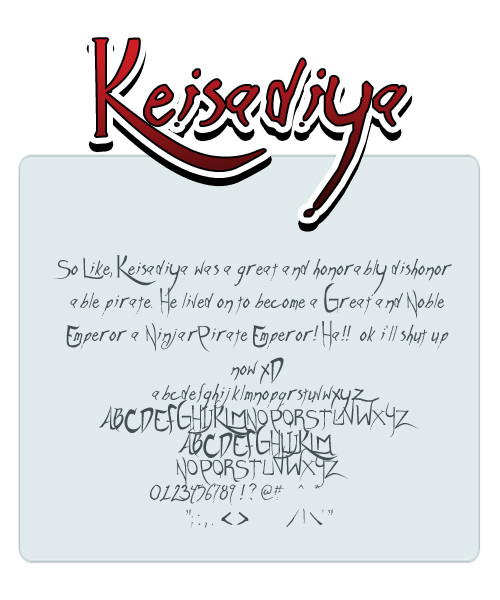
made this for a grovy rogue-ish title font. use in caps then lower case for liek Keisadiya not keisadiyaRelated content
Yeah, it's one of the best I have. I'm sure this font need
xD Great Ninja Pirate Emperor ?
yup that what happens when u take over ninja and pirate empires!!! hah
Cool looking typeface that you've got there. I dunno why, but I get this odd feeling that taco bell has something similarly named as your font. Anyway, this font of yours looks like it's got some creepy applications one could apply to it in use.
haha XD well ist inspired by my charcter keisadiya lol and yus i tried a few things out it works for cryptic/zombie-ish titles as well XDD